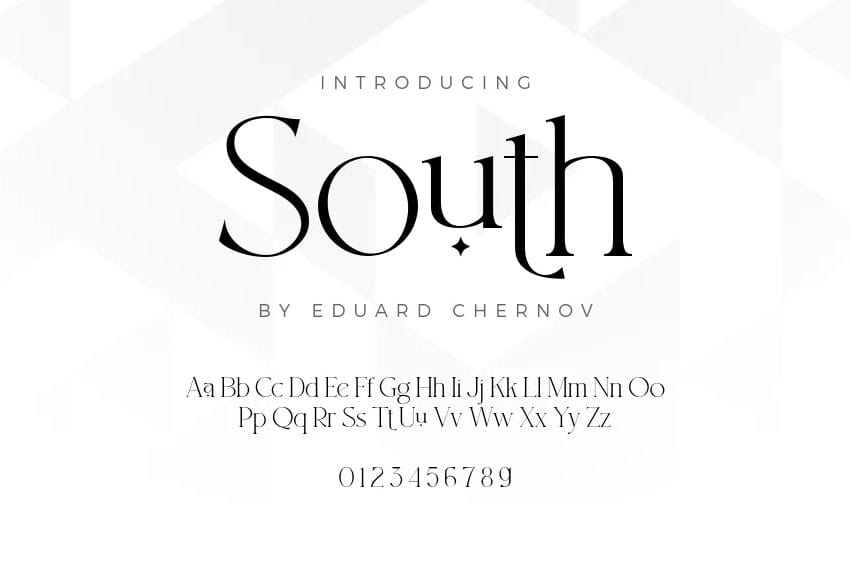
South Font is an Art Deco-inspired display typeface that is perfect for applications such as headers, logos, branding, and other displays. The font has been thoughtfully designed to suit the needs of those looking for an eye-catching display typeface.
Created by Eduard Chernov, South Font offers a distinct style that is sure to make your message stand out. Whether you’re creating a brand identity or designing a website, South Font is an excellent choice for making a lasting impression.